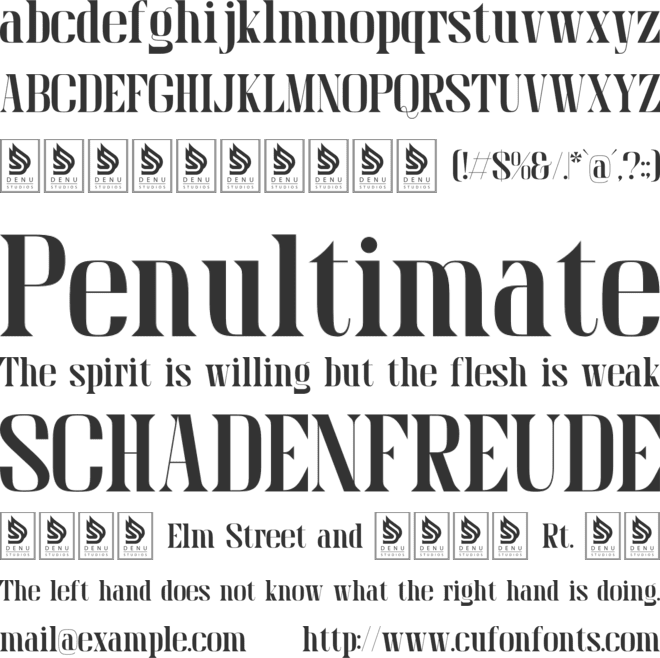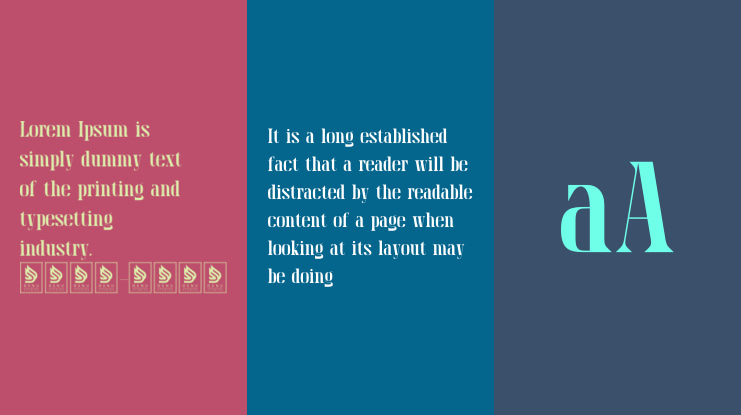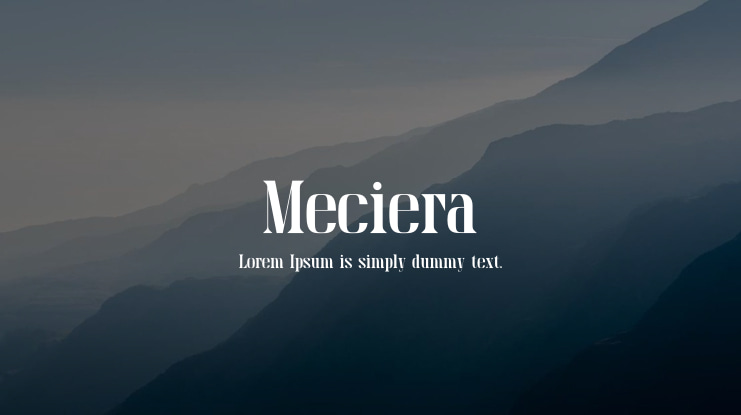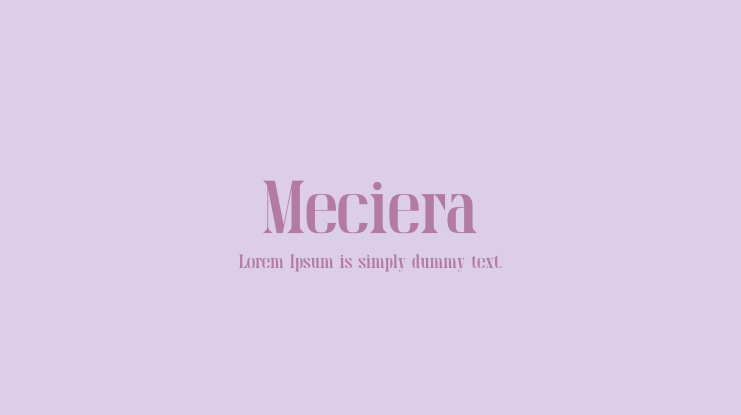
Meciera | Combination Serif product packaging, mugs, quotes, posters, shopping bags, t-shirts, book covers, name card, invitation cards, greeting cards, label, photography, watermark, special events, and all your other lovely projects that need a Combination Serif taste.